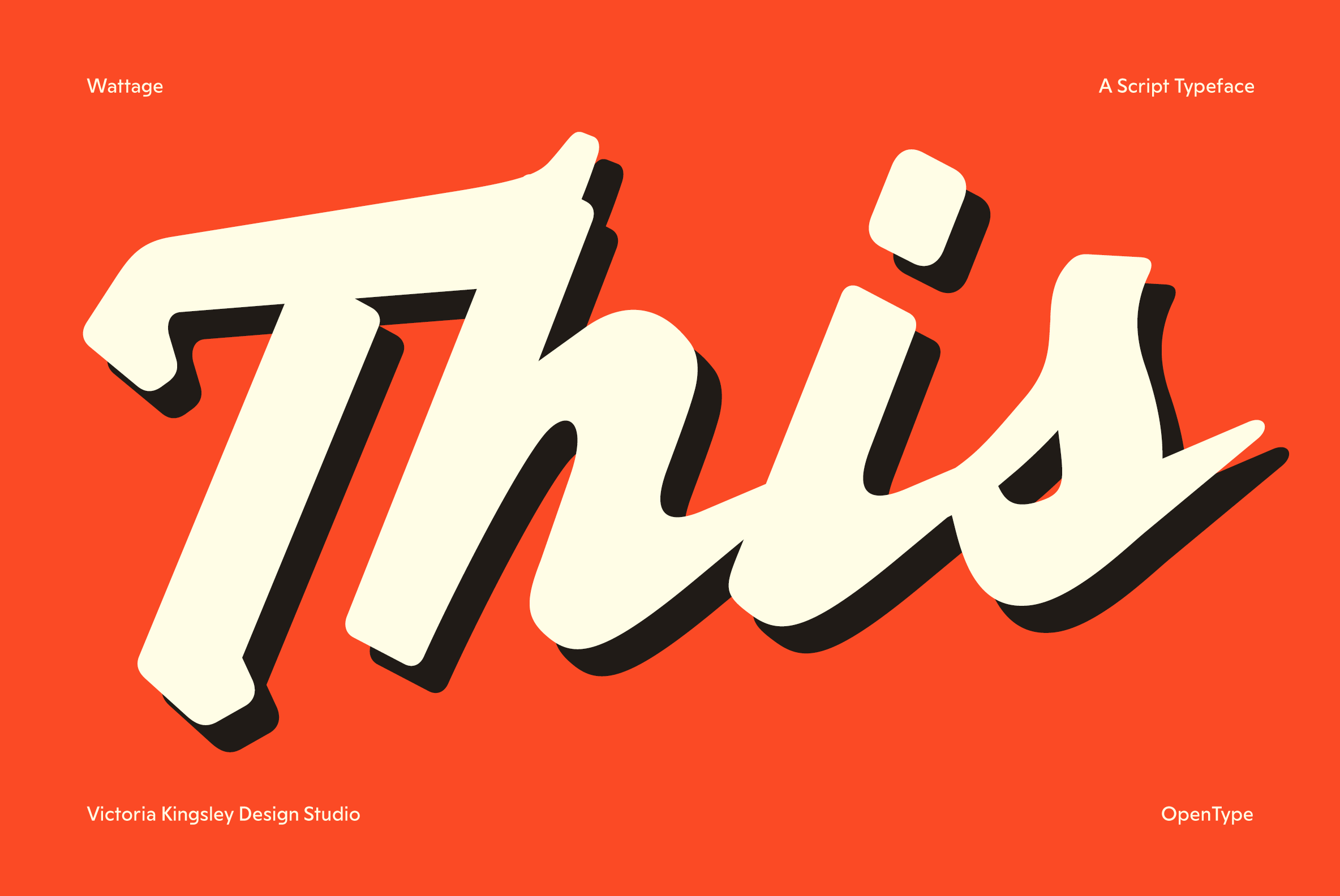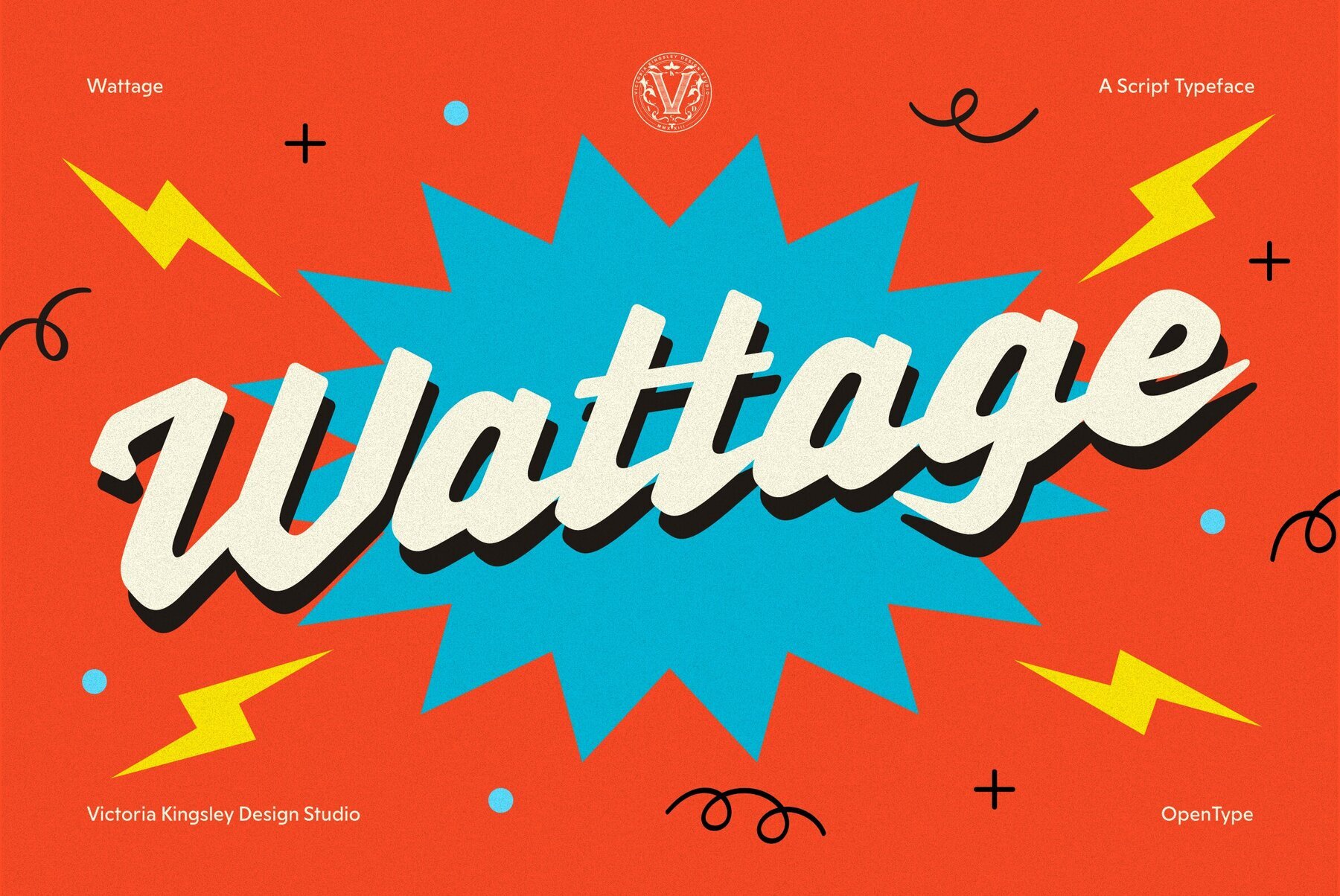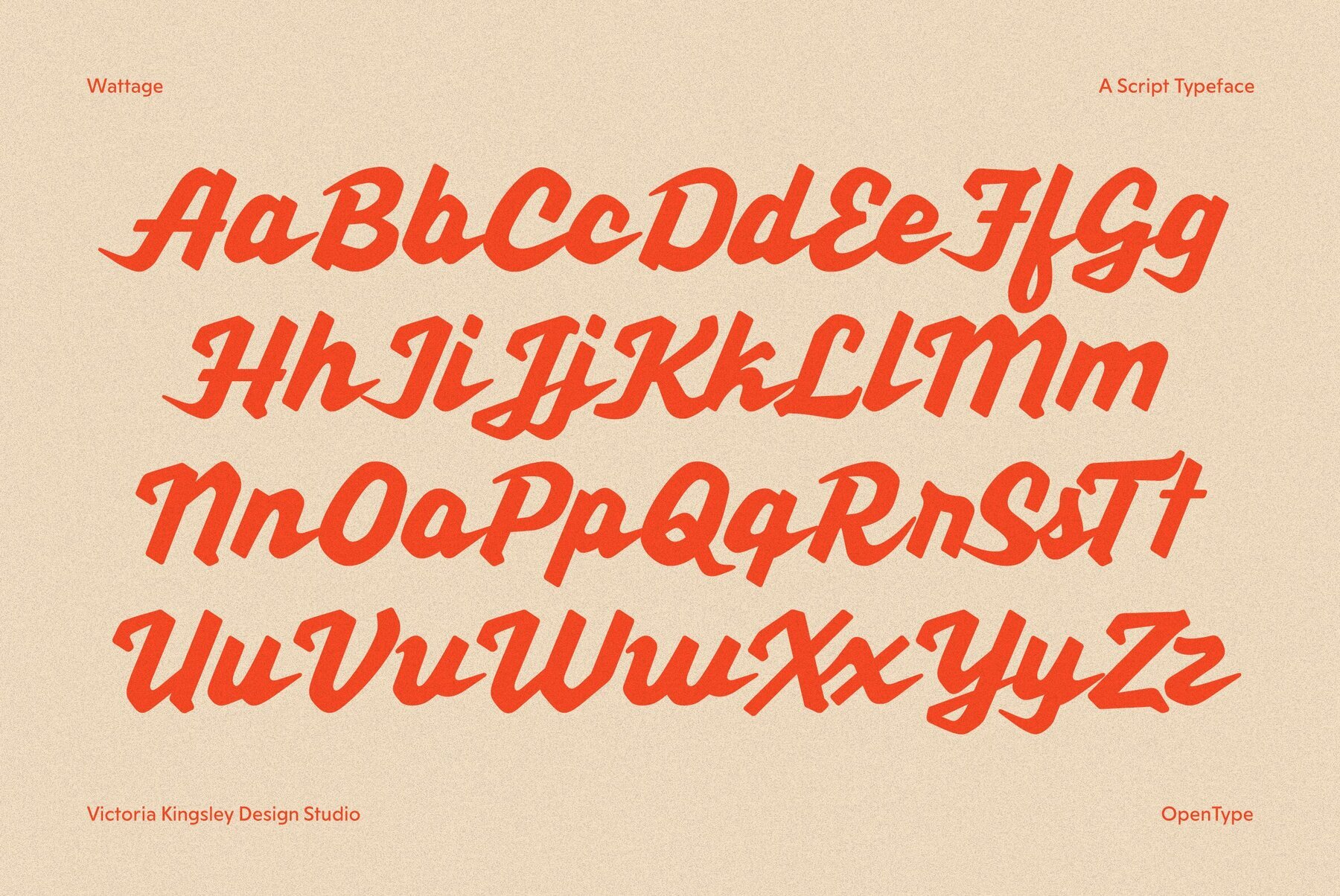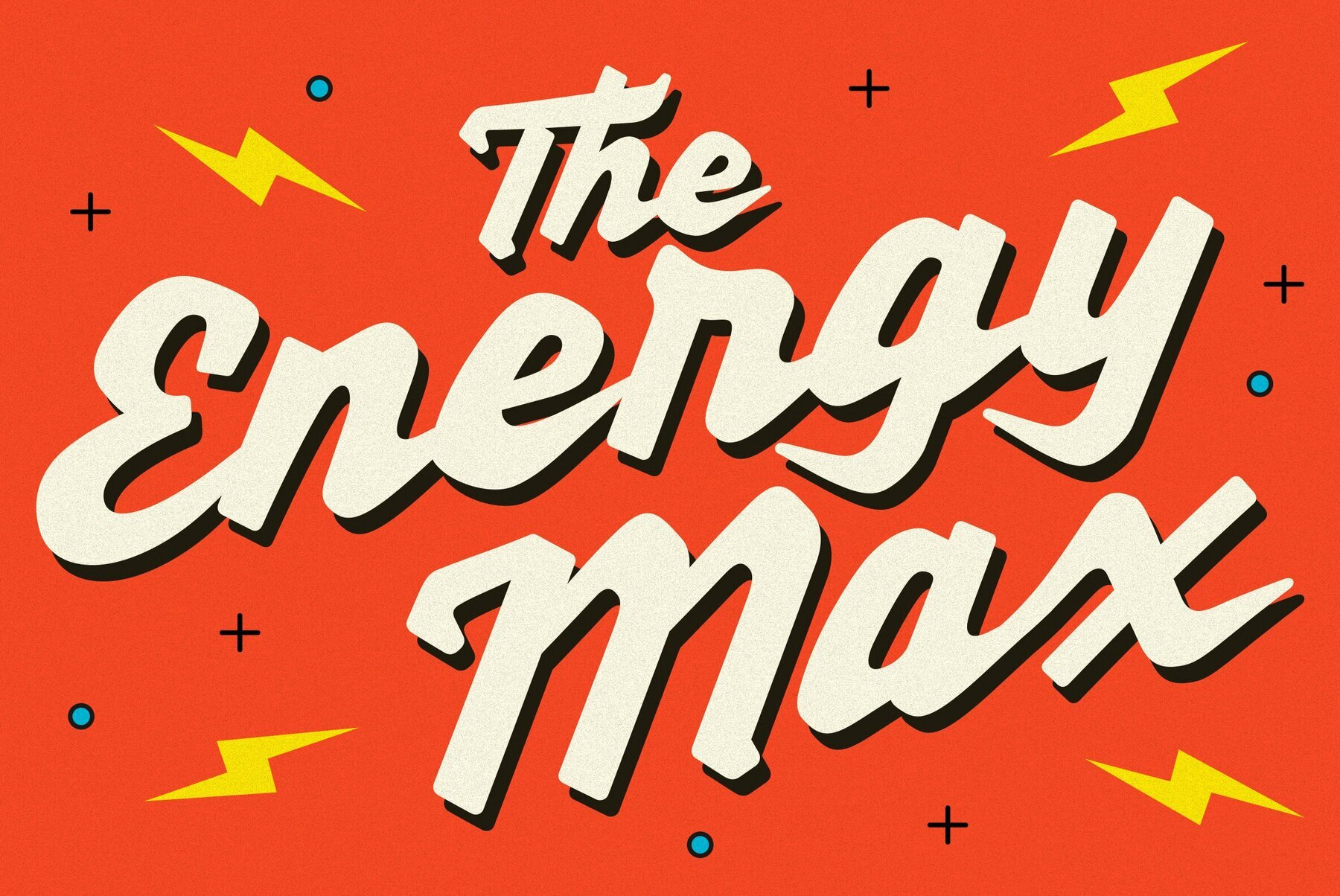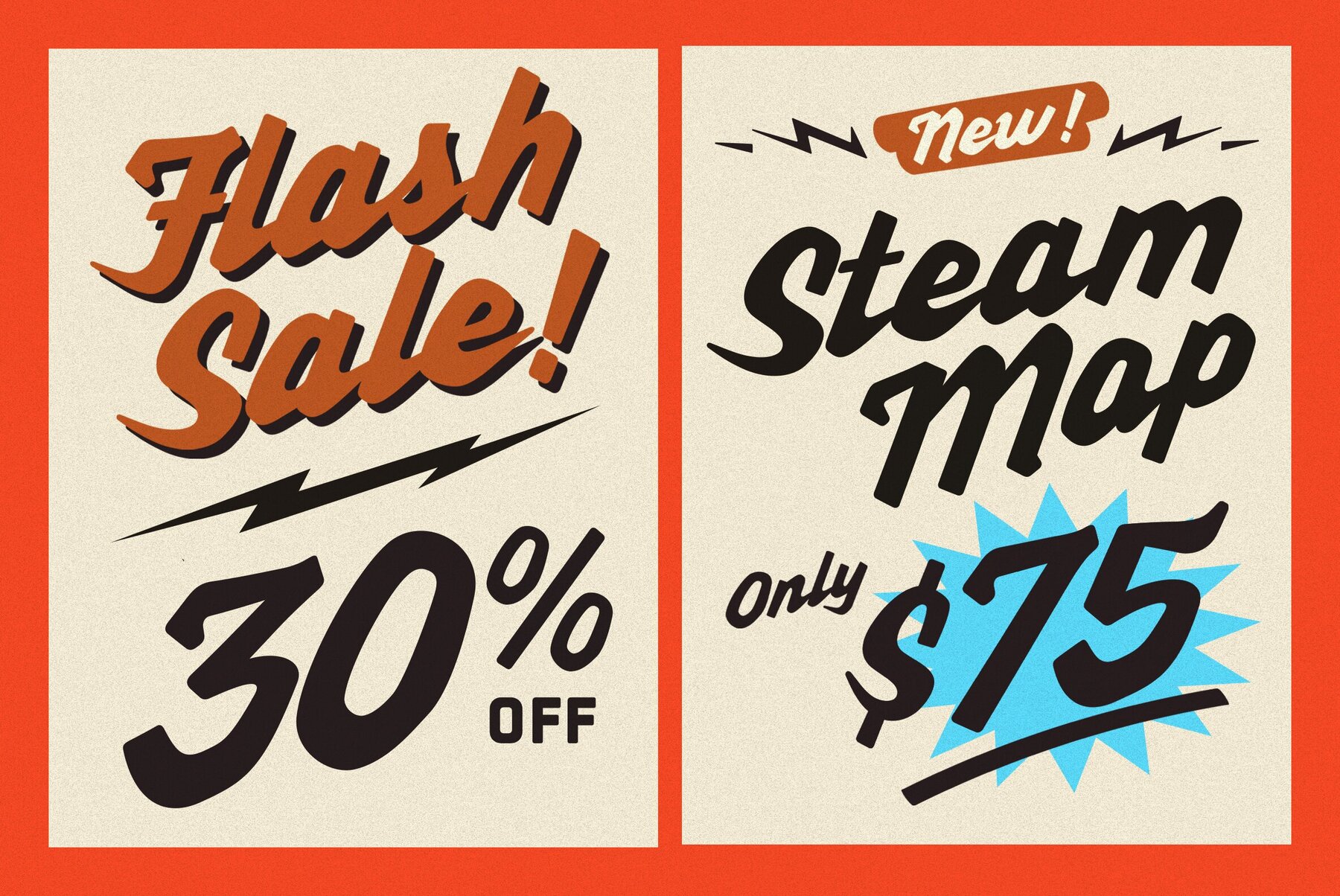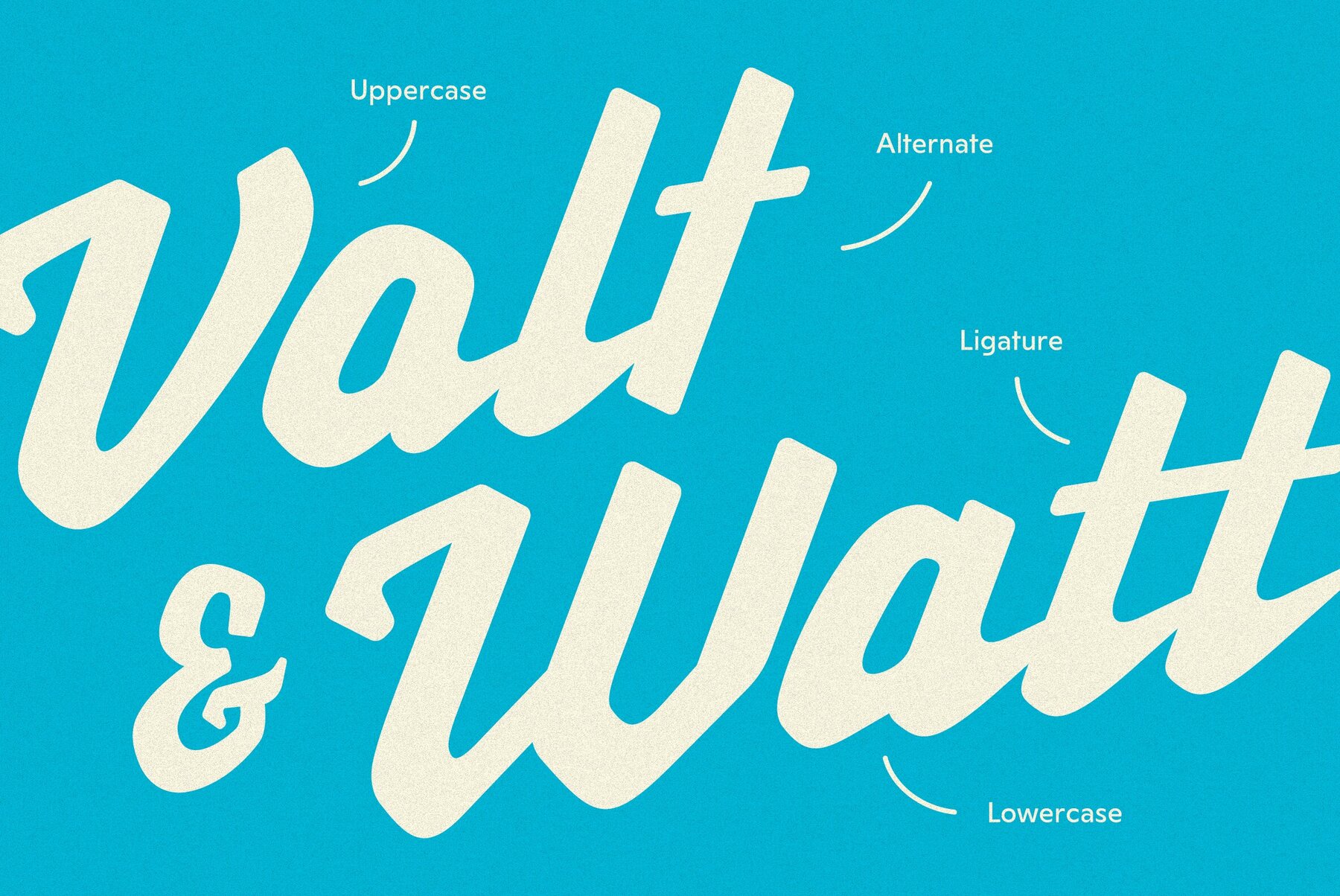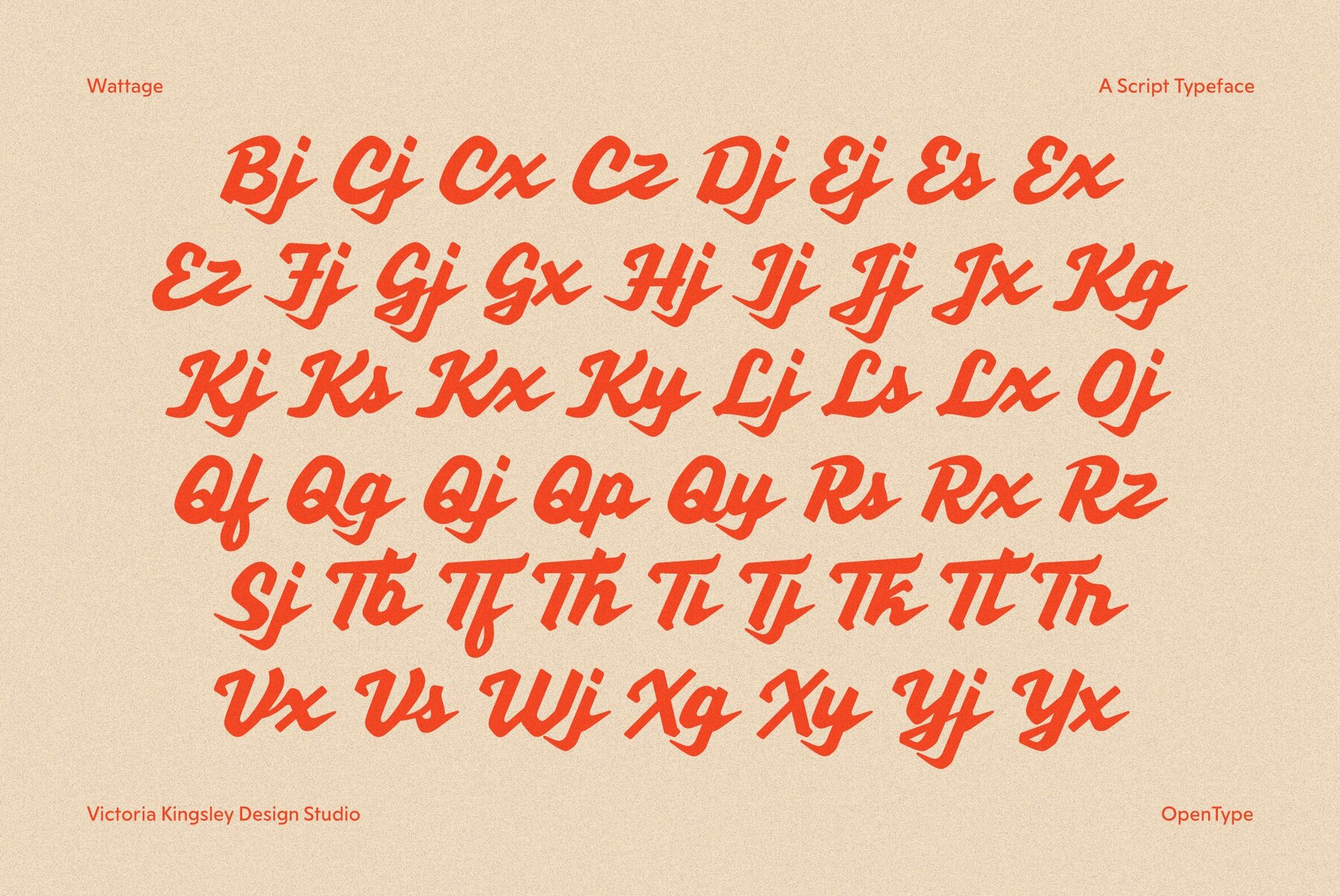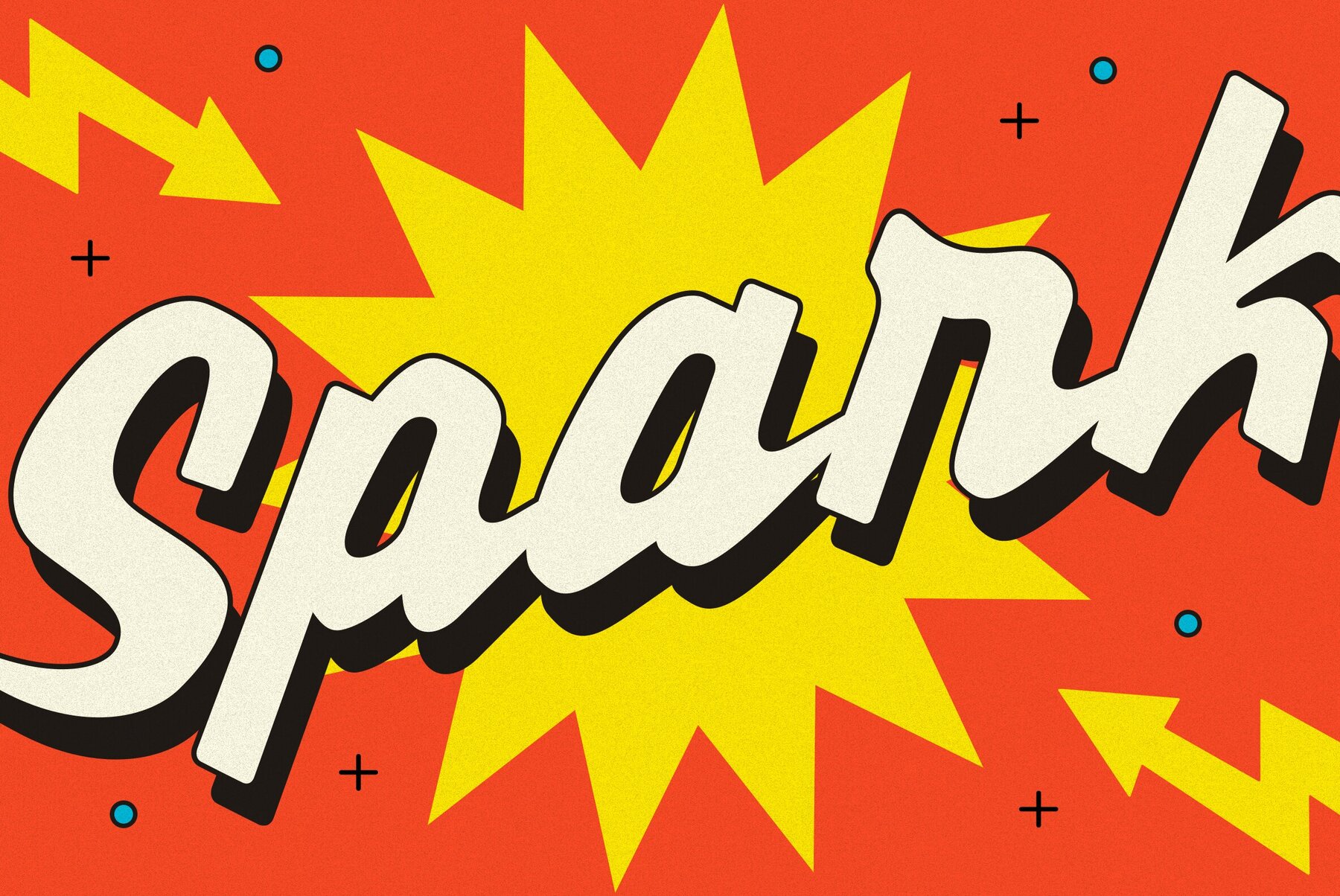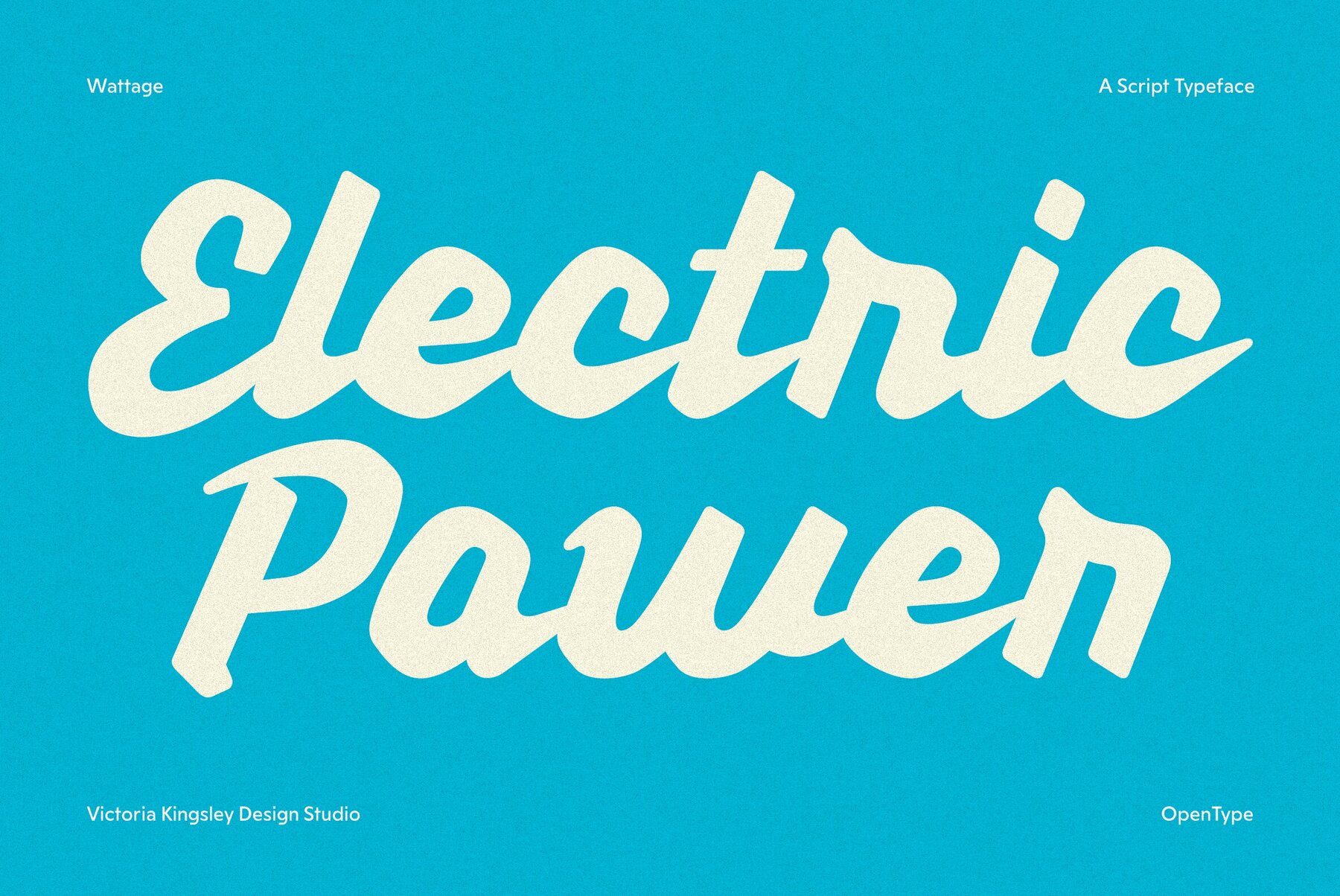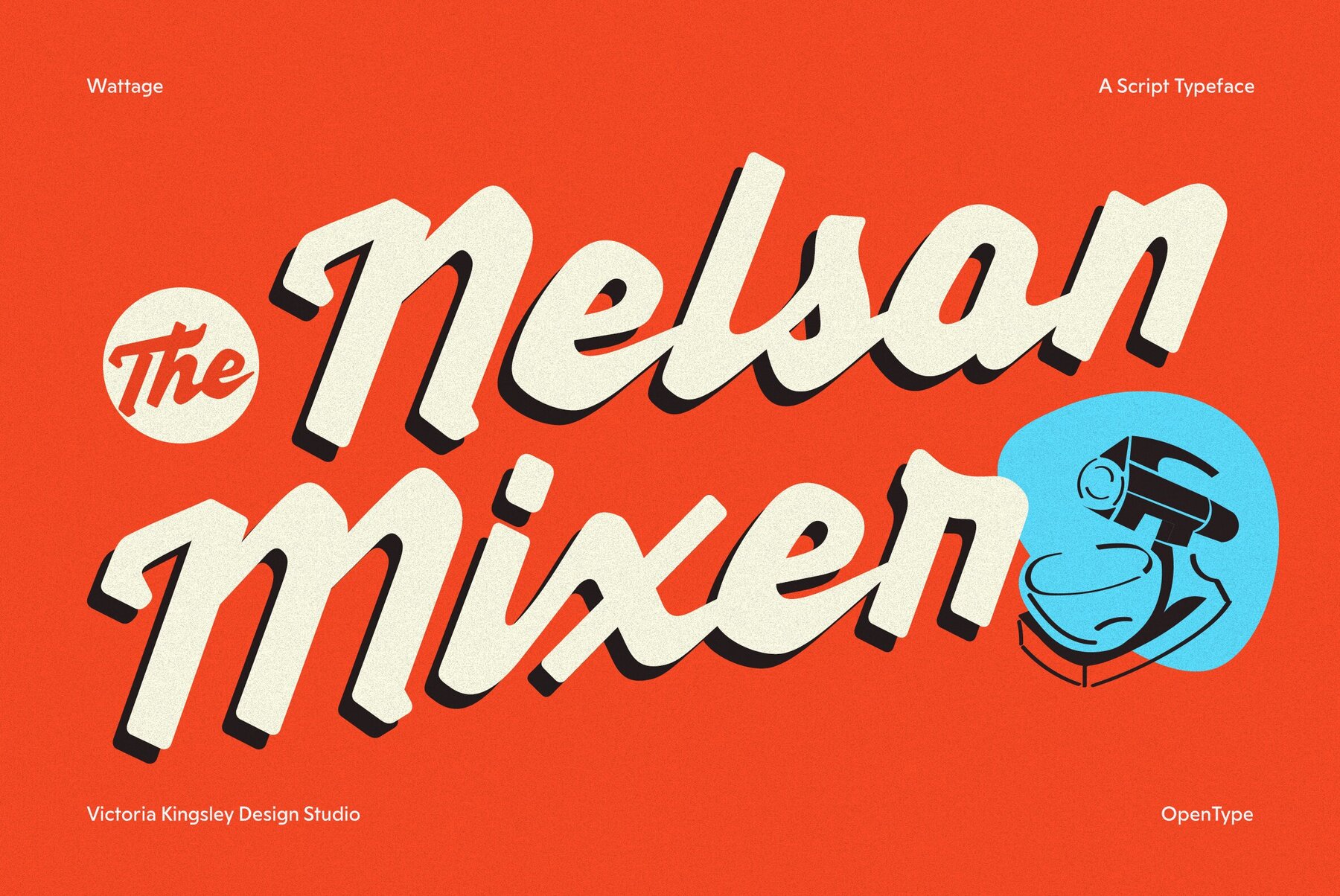
Wattage is a bold new addition to YouWorkForThem’s exclusive font library, created by Victoria Kingsley Design Studio. Inspired by retro American typography, Wattage draws directly from the industrial scripts of the 1950s and 1960s—letterforms once found on appliances, automotive branding, and factory signage. It carries the same raw energy, but with a refinement tailored for contemporary design. This script isn’t a reproduction of midcentury lettering—it’s a reinterpretation. Wattage captures the optimism and vigor of American industrial design, yet it’s been reworked for today’s digital-first creative needs. Its strokes remain sharp and lively on screen, while still holding their strength in print applications. From packaging to social media reels, Wattage adapts seamlessly across platforms. With 407 glyphs, Wattage goes far beyond the basics. It also includes powerfull OpenType features such as: Case Sensitive Forms Discretionary and Standard Ligatures Initial Forms Localized Forms Stylistic Set Options Glyph Composition/Decomposition The script style has been a design favorite for over a decade in digital design, but too often, typefaces in this category come with restrictive licensing and steep recurring fees. Wattage was created specifically to change that. As a YouWorkForThem exclusive, it’s available through our simple, one-time licensing model—whether for personal, commercial, or enterprise use. Unlike fonts that cost thousands annually for web or mobile embedding, Wattage keeps creative work accessible without compromising on quality. Every curve and ligature in Wattage carries momentum. It’s ideal for: Branding and logos seeking a vintage yet energetic tone Automotive, appliance, and industrial-inspired campaigns Headlines and posters demanding bold, lively character Digital and print use, with screen-optimized clarity Wattage is a script designed not only to honor the past, but to fuel the visual language of today at an affordable price. With its robust character set, OpenType flexibility, and licensing that respects both designers and businesses, it’s a workhorse font that refuses to fade into the background.Wattage: An Exclusive Industrial Script from Victoria Kingsley Design Studio
Industrial Style with a Modern Edge
A Complete Glyph Set for Versatility
A Font with Energy and Presence